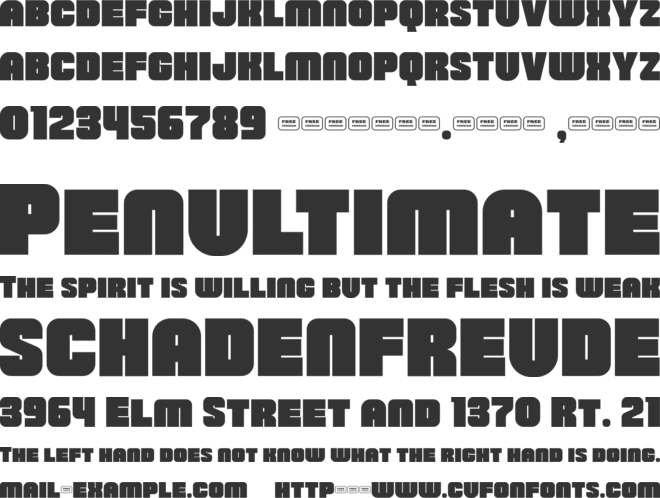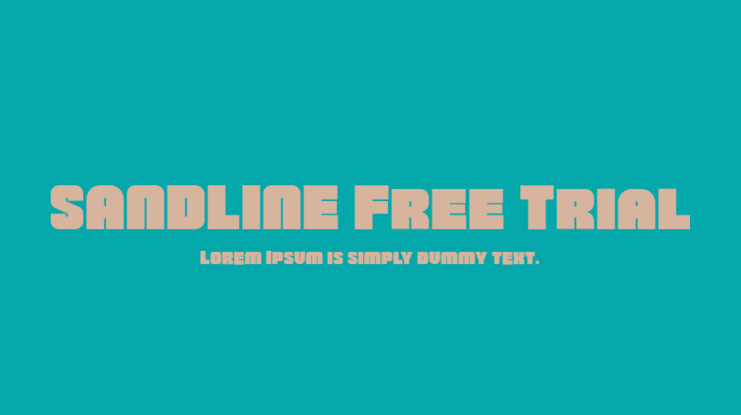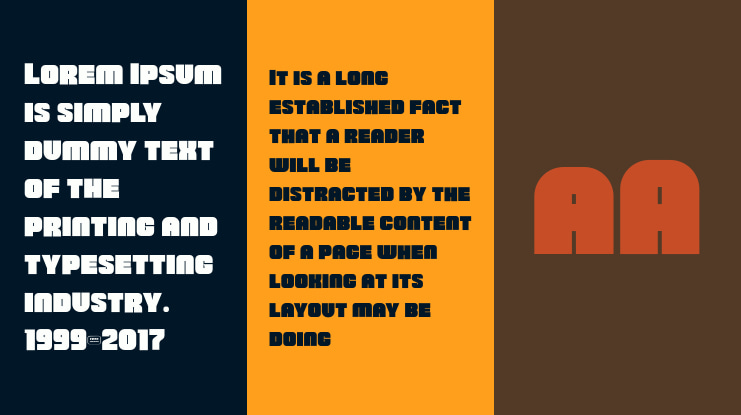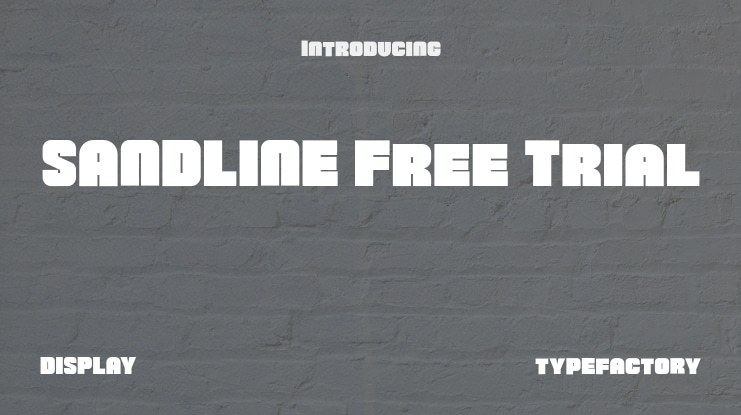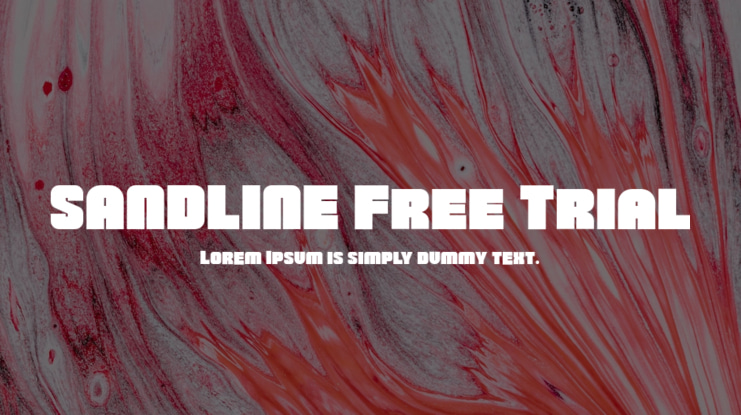
SANDLINE Free Trial Font
Make a bold impact with "Sandline" - a big black sans typeface that commands attention and exudes modernity!
With its strong and powerful letterforms, "Sandline" leaves a lasting impression in any design project. Each character is meticulously crafted to showcase a perfect blend of boldness and readability, making it ideal for impactful headlines, striking posters, sleek branding, and more.
Embrace the versatility of "Sandline" as it effortlessly elevates your designs. Whether you're working on minimalist logos, urban graphics, clean layouts, or attention-grabbing packaging, this font will captivate your audience with its big and powerful style.
Step into the spotlight with "Sandline" and let your designs shine with boldness and contemporary flair!